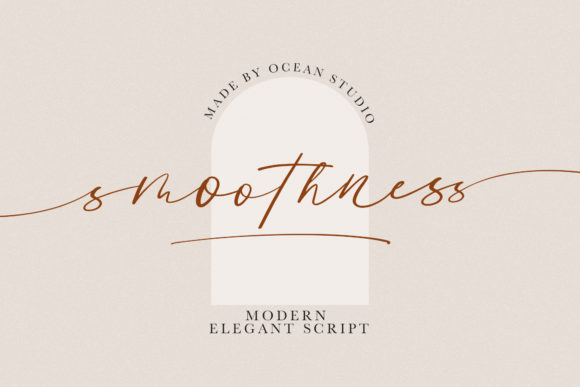
Dive into the world of elegance and sophistication with Smoothness Font, the ultimate script font family designed to captivate your audience and leave a lasting impression. Created by the renowned Ocean Studio, Smoothness embodies the essence of beauty and grace, making it the perfect choice for logos, branding, and any project that demands a touch of refinement.
Unleash your creativity with this stunning font collection, meticulously crafted to provide you with endless possibilities. Whether you're a seasoned designer or just starting out, Smoothness will elevate your work to new heights. Its PUA encoding ensures effortless access to a treasure trove of glyphs and swashes, empowering you to add intricate details and captivating flourishes to your designs.
Experience the allure of Smoothness's varying baseline, adding a touch of dynamism and visual interest to your creations. The smooth, flowing lines dance across the page, creating a sense of effortless elegance that will leave your audience mesmerized. Adorned with gorgeous glyphs and stunning alternates, this font family is a true feast for the eyes, guaranteed to make your designs shine.
Indulge in the contemporary and fresh vibe of Smoothness, a font that seamlessly blends classic calligraphic influences with a modern aesthetic. It's the perfect choice for those seeking a timeless yet distinctive look, ensuring your projects stand out from the crowd. Fall head over heels in love with this enchanting font and witness the transformation it brings to your creative endeavors.
Elevate your branding, captivate your audience, and make a statement with Smoothness Font. Its versatility knows no bounds, whether you're crafting logos, invitations, social media graphics, or any project that calls for a touch of elegance. Embrace the beauty of Smoothness and let your creativity soar to new heights.